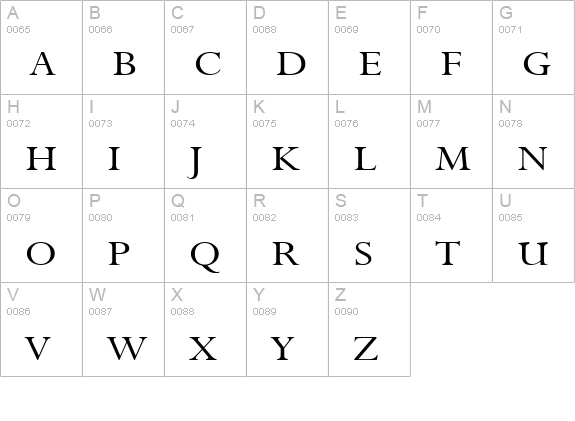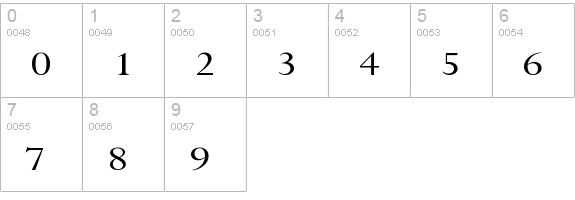
Rapid Wide Normal is the standard, neutral, extended-width variant in the Rapid typeface family \xE2\x80\x94 well suited to general body text, paragraphs, and standard typographic work.
Rapid Wide Normal font is a sleek and modern typeface that is perfect for a wide range of design projects. With its clean lines and balanced proportions, this font exudes professionalism and sophistication. The letters are bold and easy to read, making it ideal for both headlines and body text. One of the best things about Rapid Wide Normal font is that it is available for free! You can easily download this font at FontsMarket.com, a reputable source for high-quality fonts. Whether you are a graphic designer, a web developer, or someone who simply enjoys experimenting with different typefaces, this font is a must-have in your collection. The versatility of Rapid Wide Normal font allows it to be used in various contexts. From corporate presentations to website designs, this font will add a touch of elegance and style to your projects. Its wide and spacious characters give a modern and contemporary feel, while still maintaining readability and clarity. With Rapid Wide Normal font, you can create eye-catching designs that will captivate your audience. Whether you are working on a logo, a poster, or a digital advertisement, this font will help you make a strong visual impact. Its refined yet bold presence will ensure that your message is conveyed with confidence and professionalism. Don't miss out on the opportunity to enhance your designs with Rapid Wide Normal font. Download it for free at FontsMarket.com and unlock a world of possibilities for your creative endeavors.